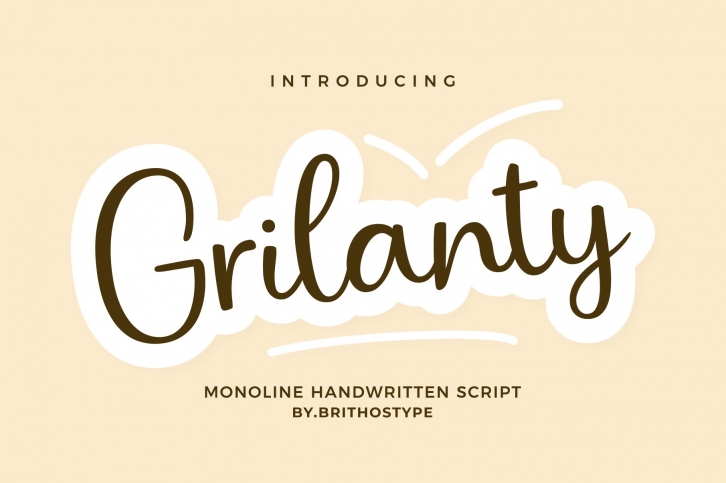
Grilanty is a beautiful font that was designed by Brithos Type. It's a great choice for designers and creatives who need such a font. It was released on December 1, 2020 and the file size is 9.38 MB. Grilanty may give a more youthful, expressive and casual look to your project. It is a very beautiful, refined, elegant, and high-quality font.